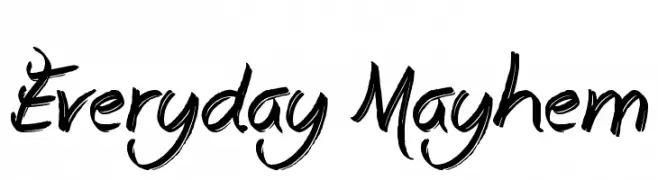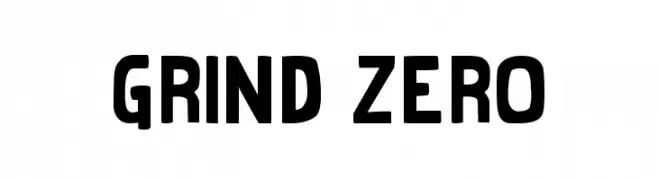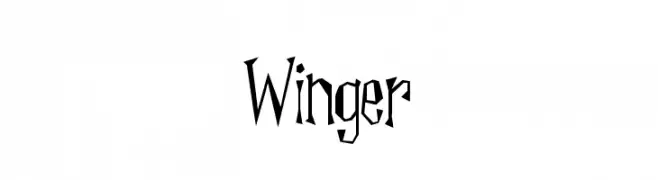
A bold, geometric display typeface with blocky, high-contrast letterforms.
A textured, hand-drawn font with a chalk-like appearance.
A graceful and elegant script font with flowing, cursive characters.
An elegant, italic script font with flowing, cursive characters.
A bold, cursive script font with dynamic, flowing strokes.
A hand-drawn, artistic font with elongated, irregular letterforms.
A bold, distressed font with a rugged, weathered appearance.
A bold, distressed font with a rugged, textured appearance.
A bold, geometric font with a modern and clean aesthetic.
A casual, playful handwritten font with smooth, flowing lines.
A bold, 3D sketch-style font with a hand-drawn texture and strong contrast.
A bold, geometric font with futuristic circular cutouts.
A bold, geometric font with strong, angular lines and a futuristic style.
A playful, hand-drawn font with irregular strokes and a quirky style.
A bold, flowing script font with high contrast and elegant curves.
A bold, brushstroke-style font with a dynamic and textured appearance.
A playful, hand-drawn outline font with an irregular and artistic style.
A bold, rugged, and hand-drawn font with a playful, cartoonish style.
A bold, italicized font with a reggae-inspired, dynamic style.
A bold, italicized font with angular edges and a dynamic, modern style.
A dynamic and expressive handwritten font with fluid, flowing letterforms.
A bold, expressive handwritten font with dynamic strokes and playful elegance.
A bold, fluid script font with interconnected letters and a natural handwriting feel.
A lively handwritten font with smooth, slanted strokes and a casual elegance.
A bold, hand-drawn style font with energetic and playful characteristics.
A playful and elegant script font with flowing, cursive letters.
Bold, dripping display font with a spooky, retro Halloween style.
A bold, playful font with a retro vibe and slight slant.
A dynamic and expressive handwritten font with fluid letterforms.
A bold, modern font with a geometric and condensed design.
A bold, geometric font with angular lines and a modern aesthetic.
A bold, textured brushstroke font with a dynamic and artistic style.
A lively and expressive handwritten font with fluid strokes and playful elegance.
A dynamic, flowing script font with elegant curves and bold strokes.
A bold, textured, hand-drawn font with a casual and artistic style.